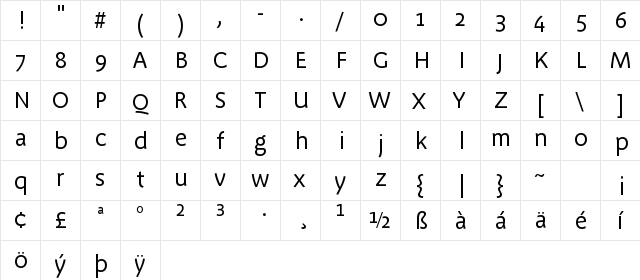
Megano Regular
| Foundry | Xavier Dupre |
| Designer | Xavier Dupre |
Design Context for Megano Typeface
Megano takes a measured approach to typography — its balanced proportions and neutral character make it a reliable workhorse for both digital and print work.